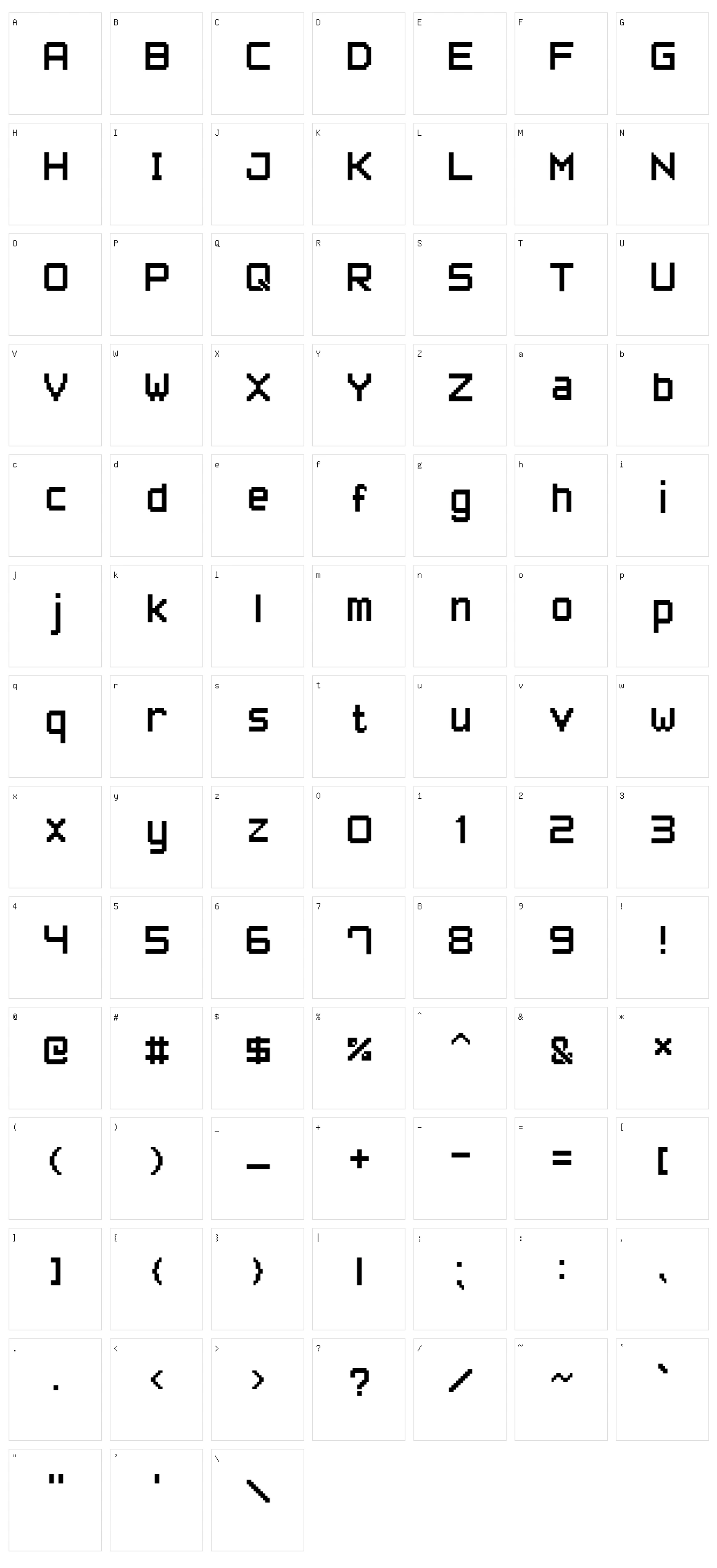
Pixel Font7
Designed by: Style-7
This font based on bitmap font created for freeware original strategic game Mars Soldiers-7.
Latin and Cyrillic code pages are supported.
* Lower case letters are changed;